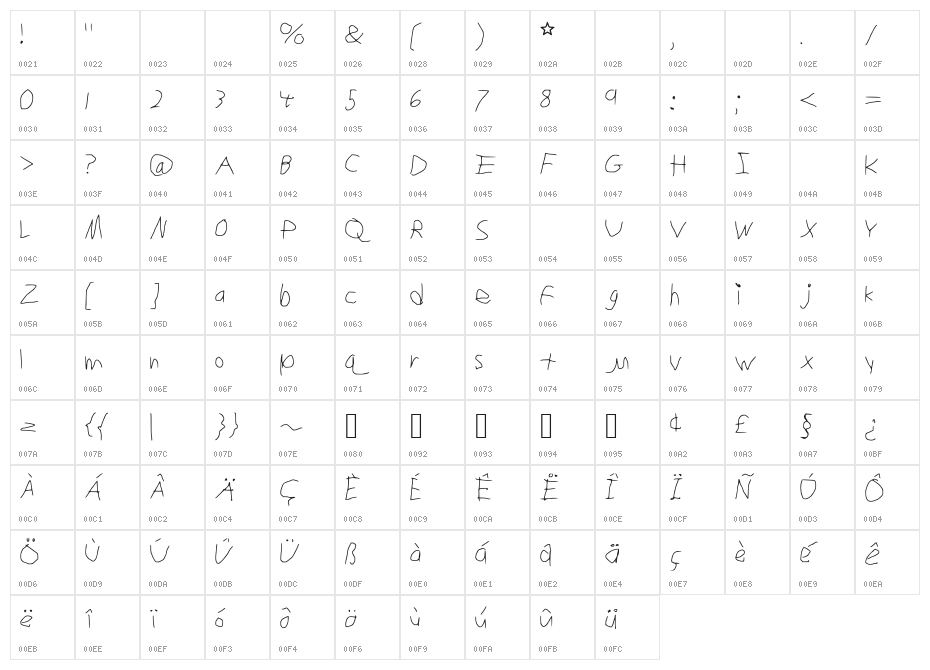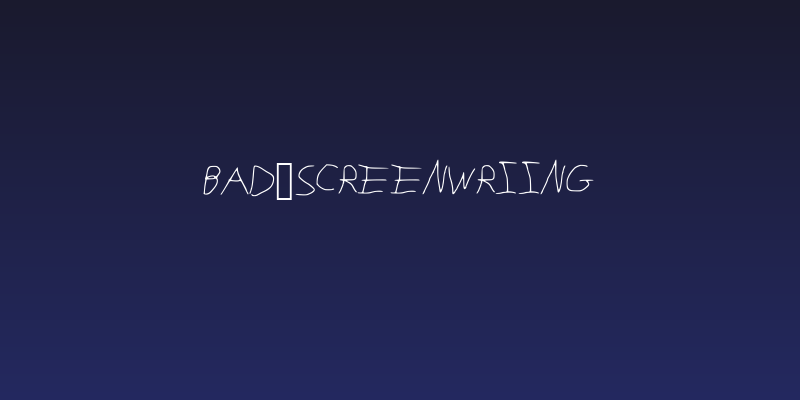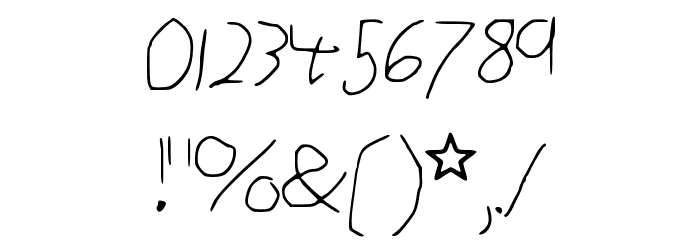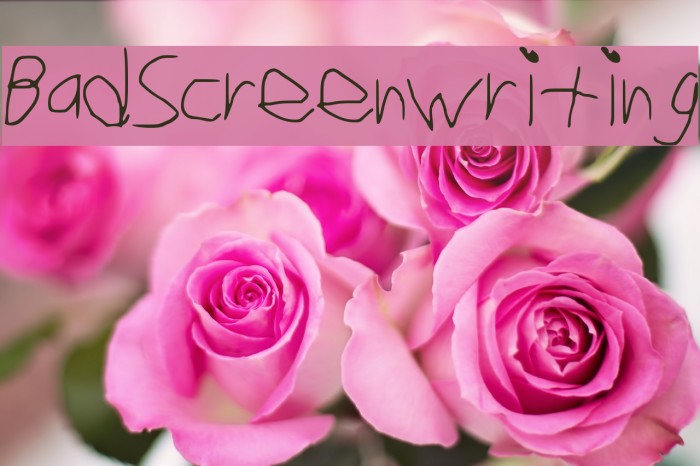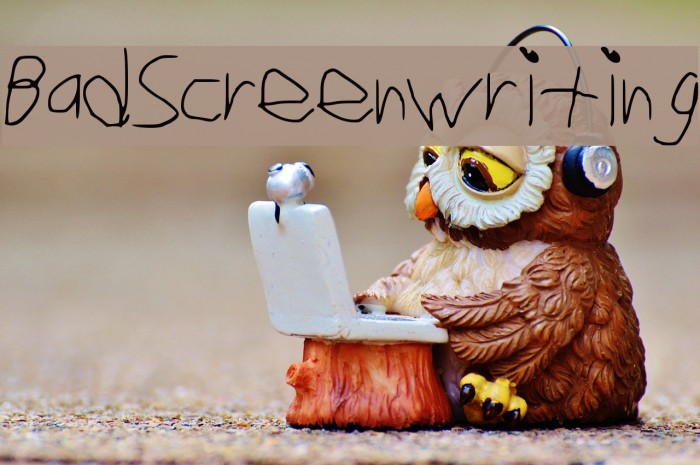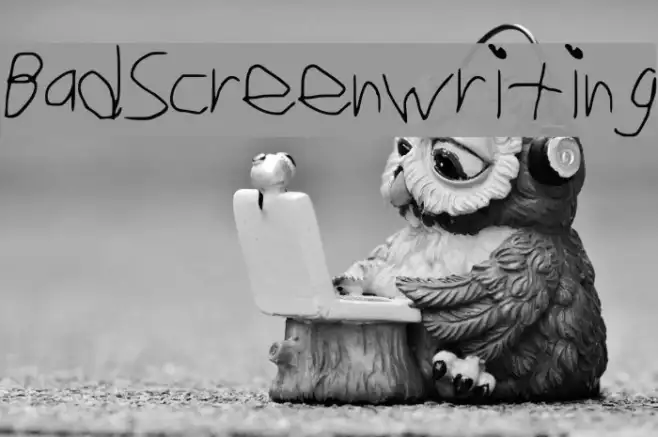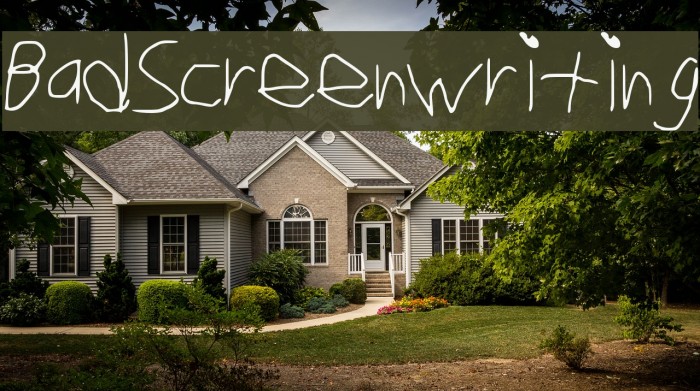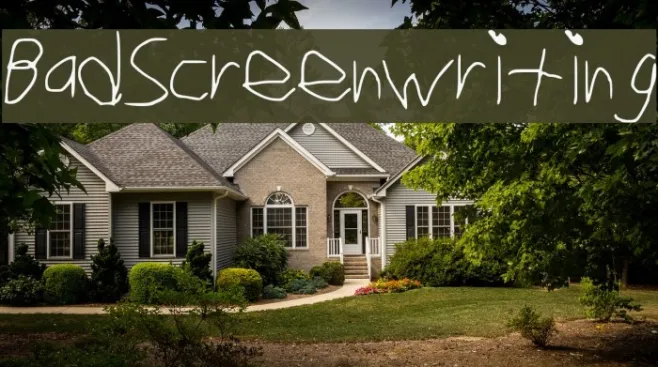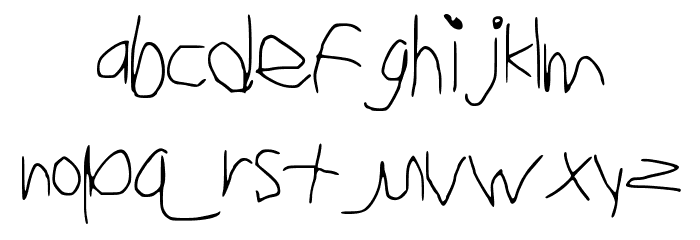
Bad_Screenwriting Font
Bad_Screenwriting Description
This font features a casual, handwritten style that mimics the look of quick, informal writing. The characters have a slightly uneven baseline, adding to the organic and spontaneous feel. The strokes are thin and vary slightly in thickness, giving a natural, unpolished appearance. The uppercase letters are tall and narrow, while the lowercase letters maintain a consistent height, contributing to a cohesive yet relaxed aesthetic. The numerals and special characters follow the same informal style, making this font suitable for projects that require a personal touch.